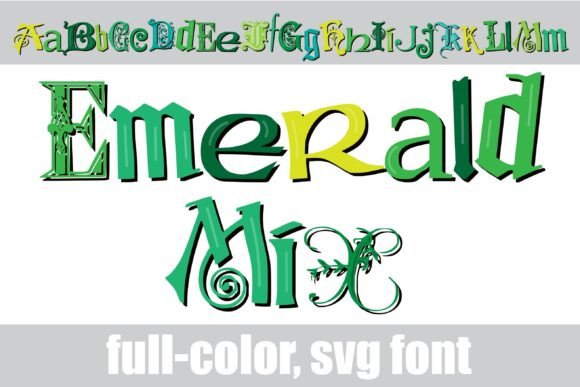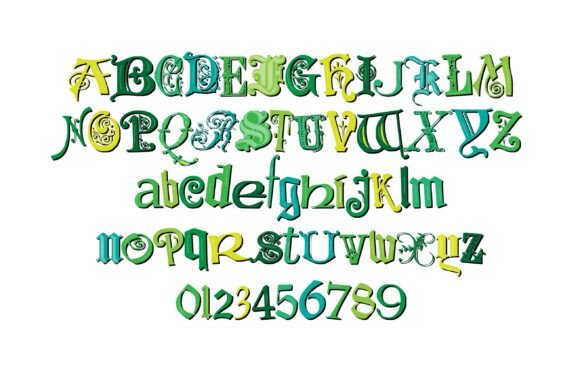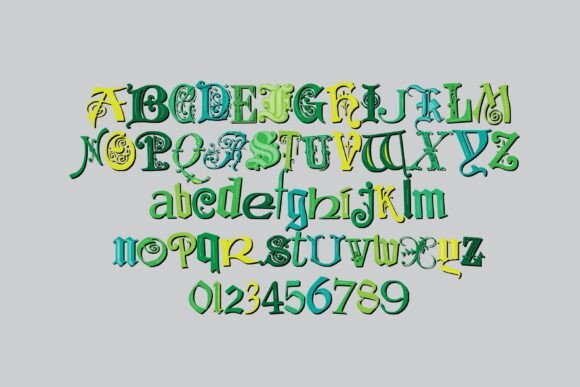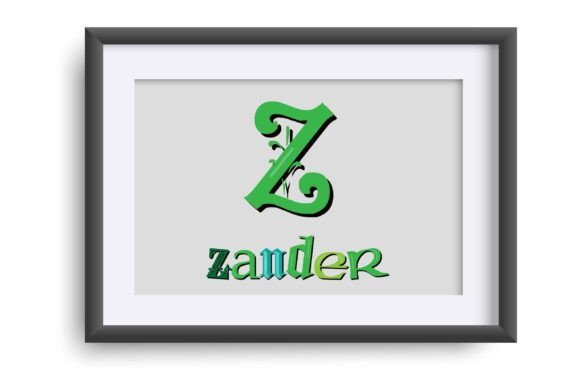
Add a touch of class to your work with the Emerald Mix Font, a truly exceptional typeface. This full-color font features a mix of font styles in green. There is an alt version you can access through your system’s character map that contains additional colors of all the letters. This font works best for titles, displays, posters and more. Please note color fonts will show as black in non compatible programs. This font type is compatible with Silhouette Studio.
Emerald Mix’s bold, playful nature makes it ideal for eye-catching headlines, posters, and branding projects requiring a vibrant, attention-grabbing aesthetic. It’s particularly well-suited for brands targeting a younger demographic or those with a fun, energetic identity. Avoid using it for body text or long paragraphs; its highly decorative nature would hinder readability.
For optimal visual balance, pair Emerald Mix with a clean sans-serif like Open Sans for body copy or a more geometric sans-serif such as Futura for a modern feel. A simple serif like Garamond could also provide a sophisticated counterpoint, grounding the vibrancy of Emerald Mix.
Consider using it for projects such as children’s books, product packaging for playful goods, or social media graphics where visual impact is paramount. Due to its colorful and detailed design, the font is not recommended for UI elements or situations requiring high legibility in small sizes.